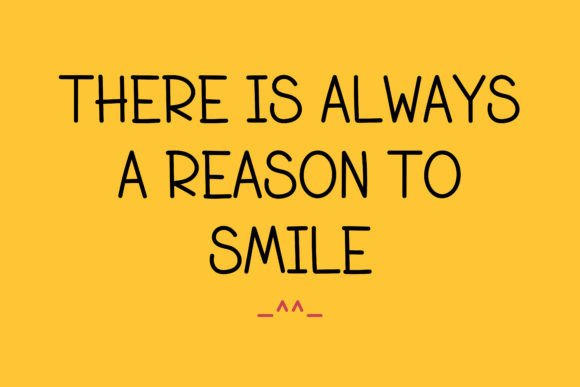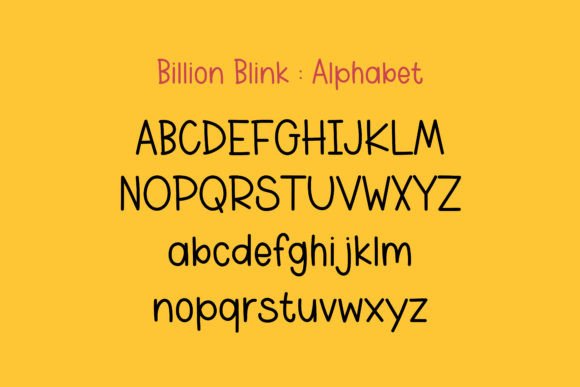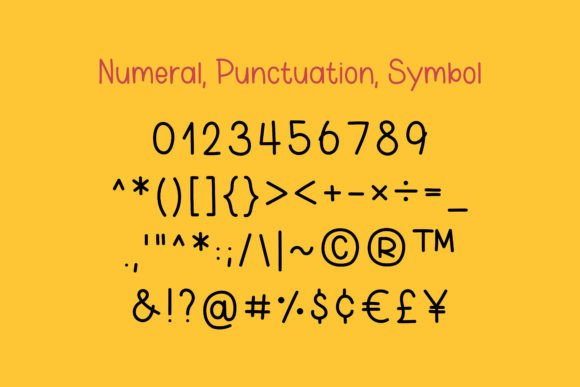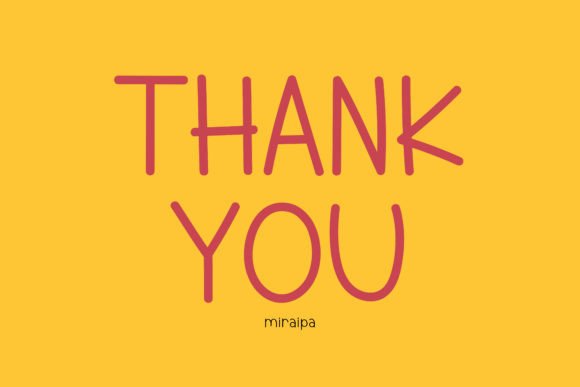
Introduction to Billion Blink Font
Have you ever been working on a creative project, pouring your heart and soul into it, only to realize that the perfect font is missing? I’ve been there too! The frustration of not being able to find the right design resource can be overwhelming. But, what if I told you that there’s a font that can instantly brighten up your designs and make them stand out? Enter the Billion Blink Font, a charming and friendly handwritten sans serif font that’s sure to capture your heart.
With its whimsical and quirky vibe, the Billion Blink Font is a game-changer for designers. Whether you’re working on a high-quality design project or just need a free download to add some personality to your social media graphics, this font is a valuable addition to your toolkit. Its transparent background makes it easy to use, and its high-quality design ensures that it will look great on any platform.
Key Features of Billion Blink Font
- Includes a range of glyphs and characters, making it ideal for use in logos, branding, and digital design.
- Designed to be highly legible at various resolutions, including 72 dpi and 300 dpi.
- Unique characteristics include a modern, sleek aesthetic and a range of customizable options.
- Can be easily scaled and resized without losing quality, making it perfect for use in a variety of creative projects.
- Comes in a range of sizes, from 12pt to 72pt, making it easy to find the perfect font size for your design.
Honest Review: Billion Blink Font
I recently came across the Billion Blink Font while searching for a high-quality design resource for a creative project. I was excited to give it a try, and here’s my honest review.
- What works well: ✨ The Billion Blink Font is available for free download, which is a major plus for designers on a budget. The font is also highly customizable, making it perfect for a variety of design projects.
- What works well: ✨ The font’s transparent background makes it easy to layer over other design elements, which is a great feature for designers who need to create complex compositions.
However, I did encounter a few limitations while using the Billion Blink Font. ⚠️ One of the main issues I faced was the font’s lack of consistency across different font sizes and styles. At times, the font appeared a bit pixelated, which took away from the overall quality of the design.
Overall, I would say that the Billion Blink Font is a solid choice for designers who are looking for a high-quality, free design resource. While it’s not perfect, it’s definitely worth considering for your next creative project.
Tips for Getting the Most Out of Billion Blink Font
Use the Billion Blink Font on a transparent background to create a unique and eye-catching design. Experiment with different font sizes and colors to create a high-quality design that suits your creative project.
The Billion Blink Font is ideal for use in creative projects such as logos, business cards, and social media graphics. Its high-quality design and transparent background make it a versatile font for a variety of design applications.